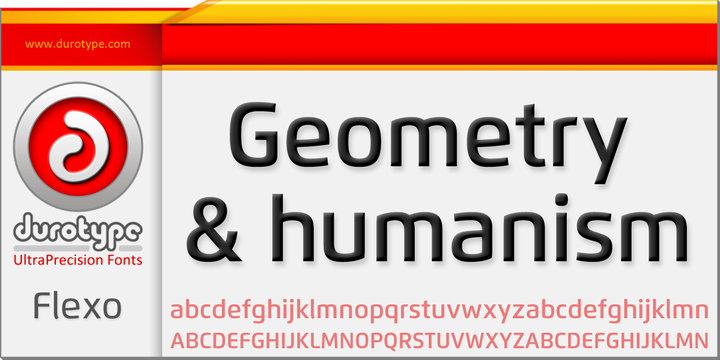
Flexo
Flexo is a beautiful geometric sans typeface that combines humanistic warmth impeccably. It is a wonderful amalgamation of the geometric and the humanistic. The typeface ensures both mathematical candour, and humanistic elegance. The squarish design helps it enjoy an edge over other typeface. It shines out in both headlines as well as text. It is … Read more